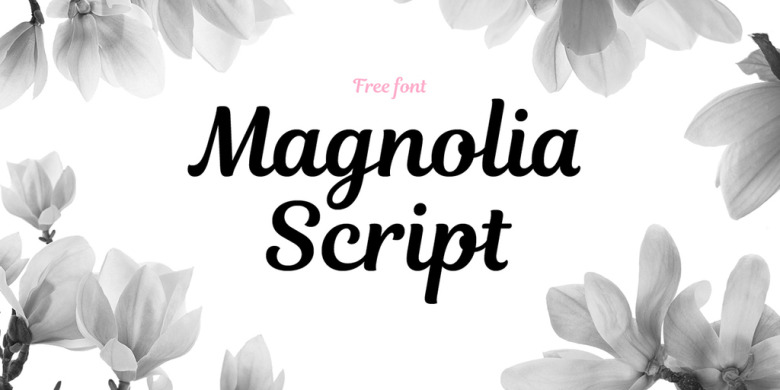
Magnolia Script Font Free
Magnolia Script Font
Magnolia Script free font is a typeface created by Tanya Cherkiz for TypeType foundry. As we can see on the previews, this typework is one that carefully crafted. It has amazing stroke, smooth like a magnolia flower and the letter is just as gorgeous as a queen. Moreover, Magnolia comes with multilingual support of various accented glyphs.
Magnolia Script Font